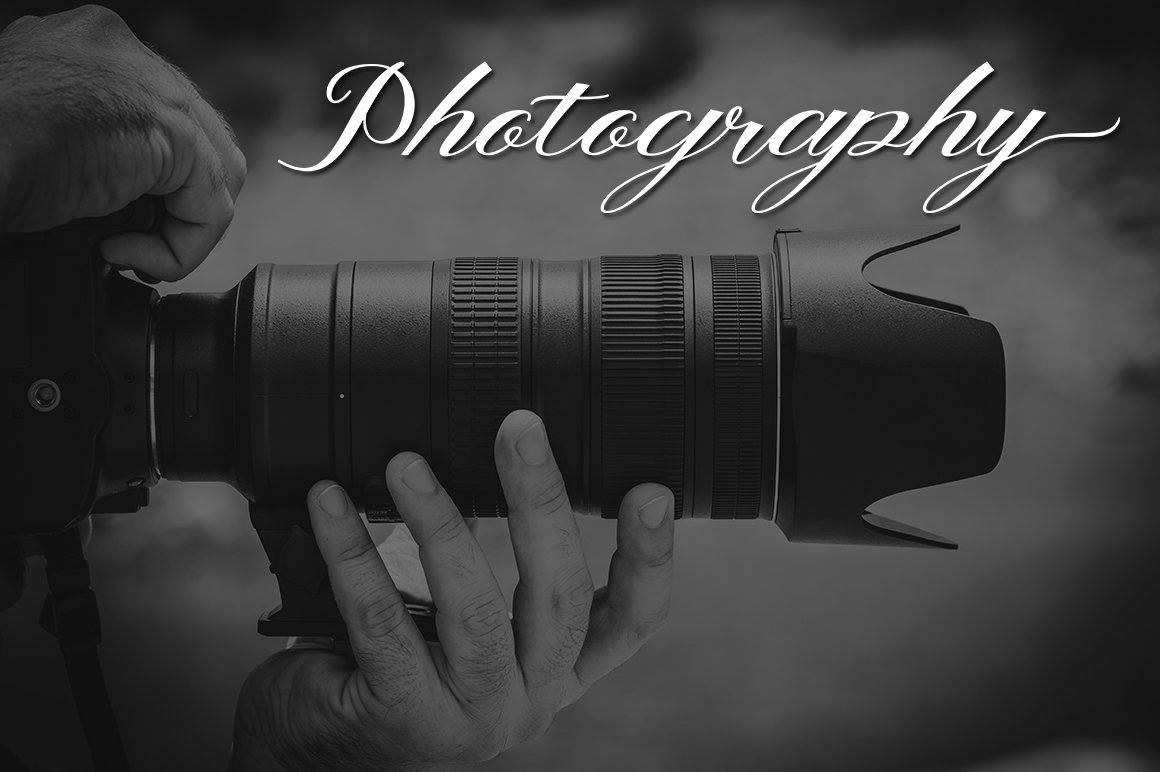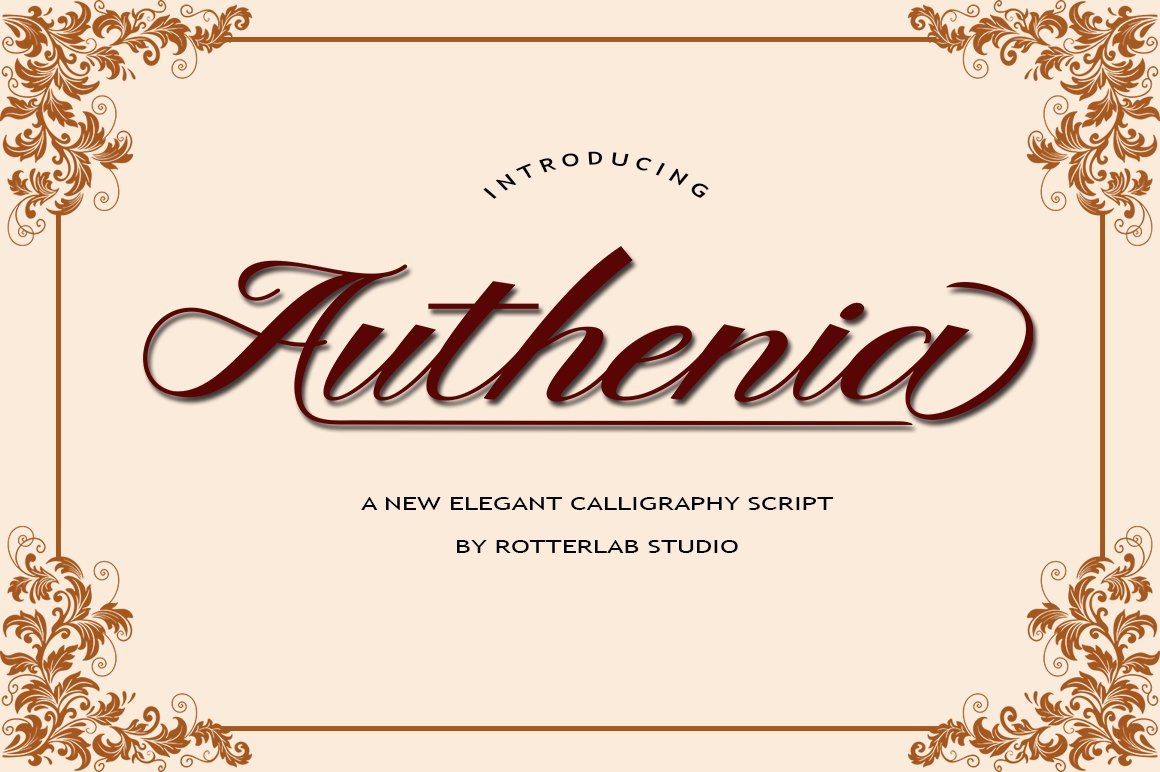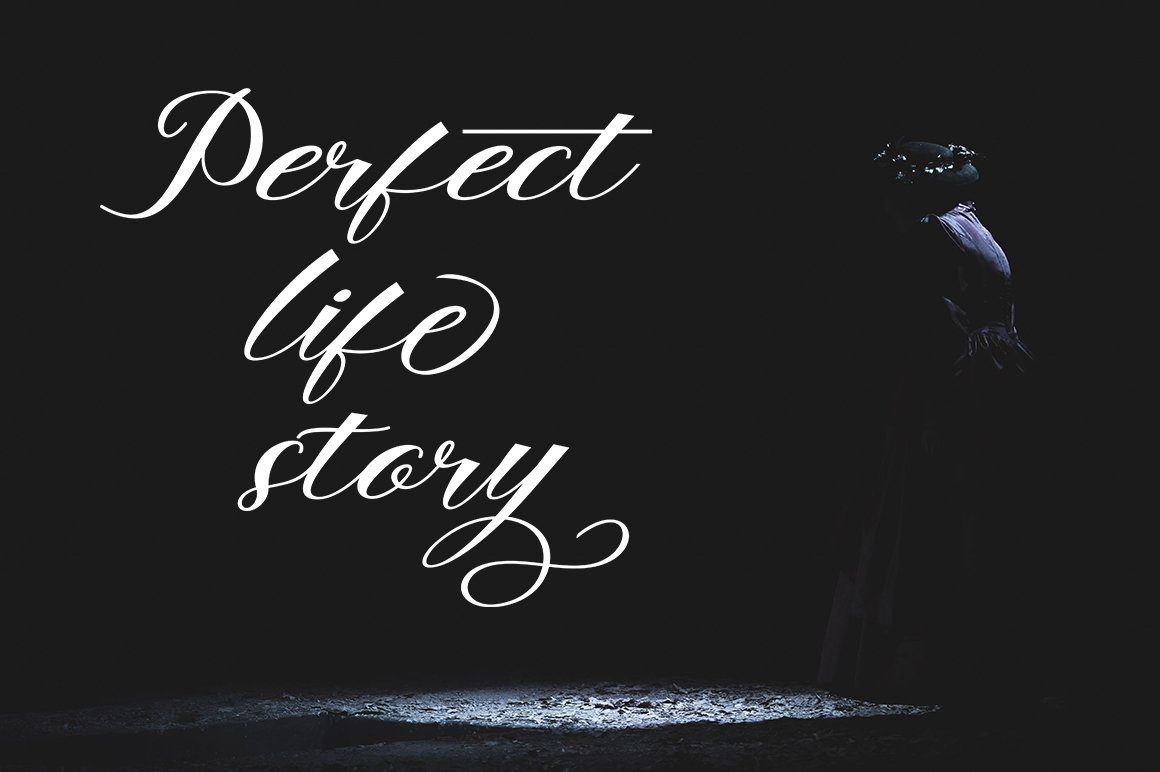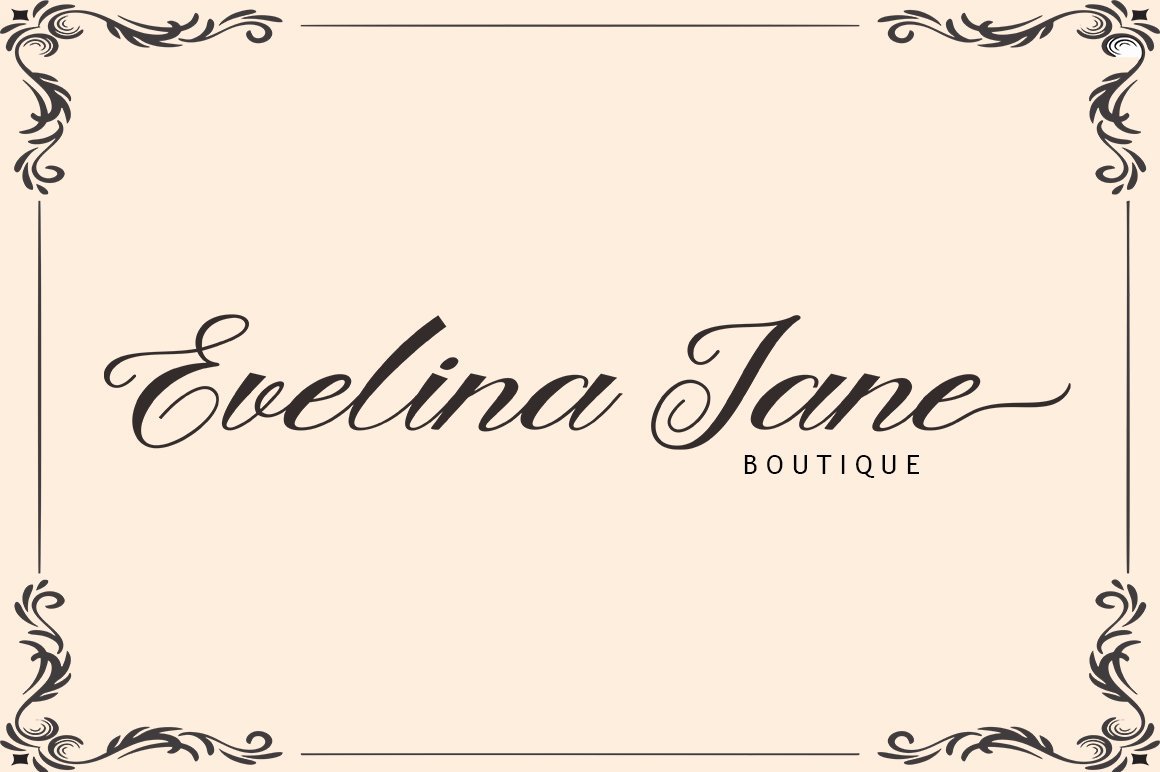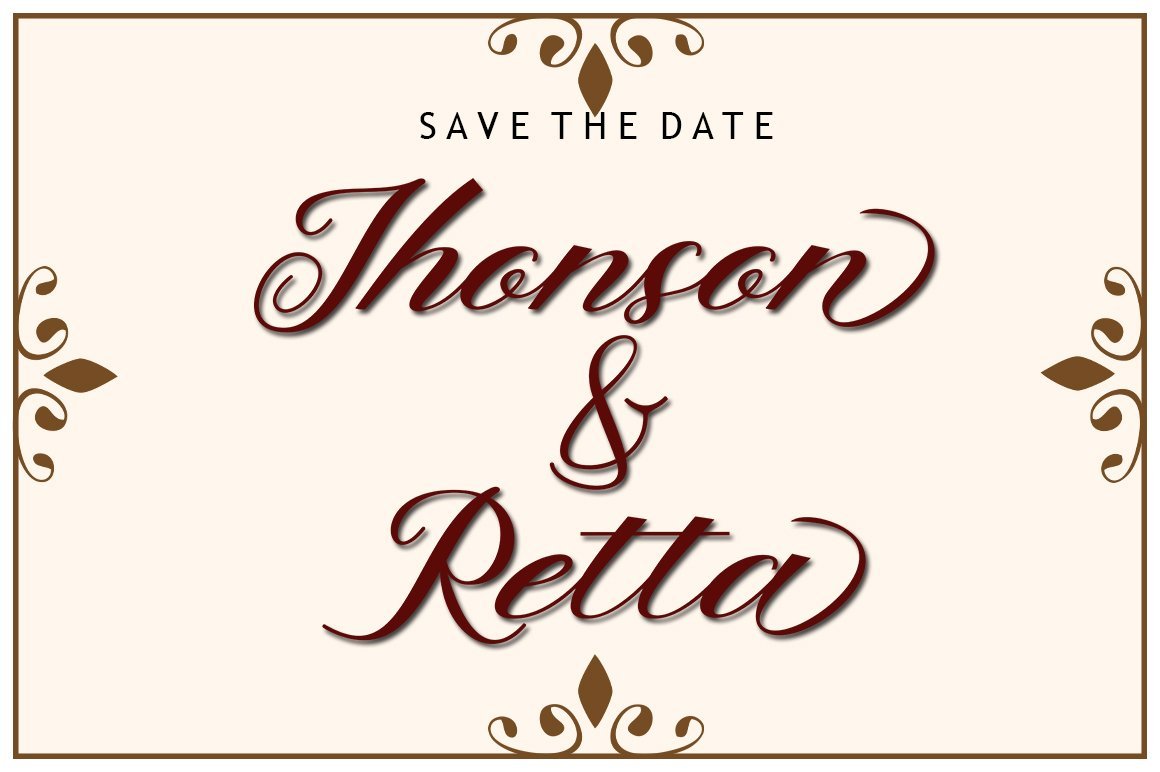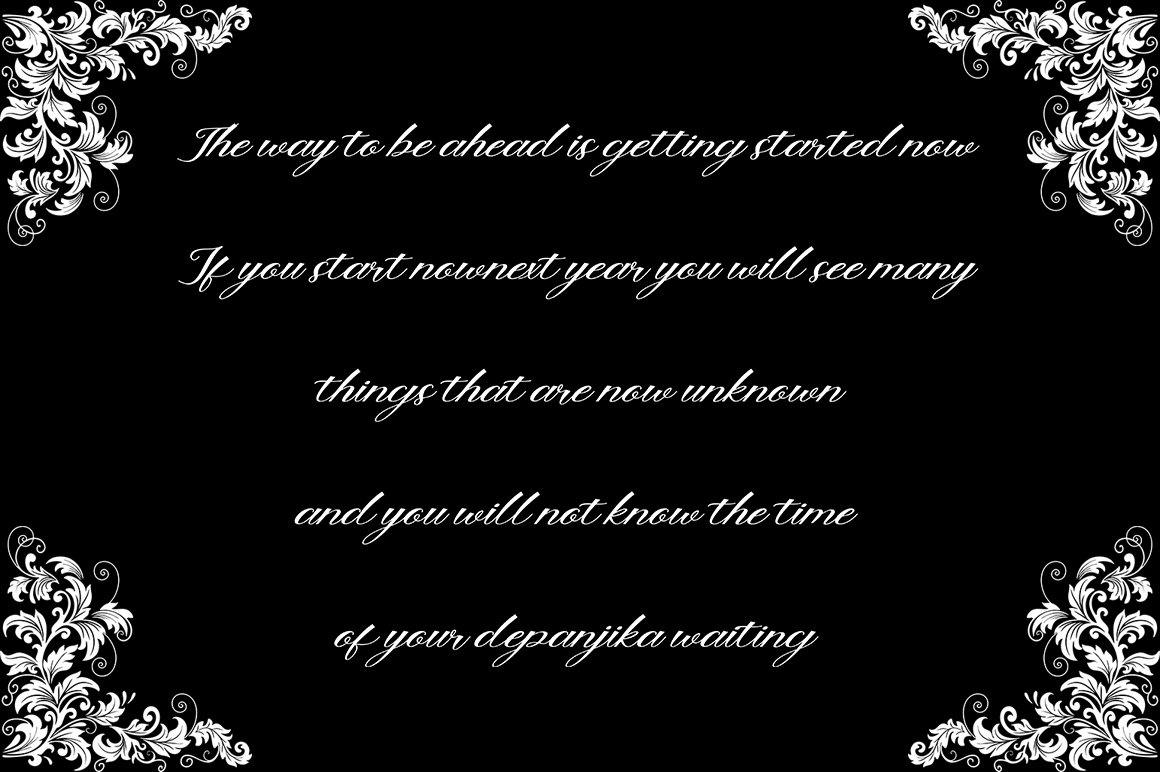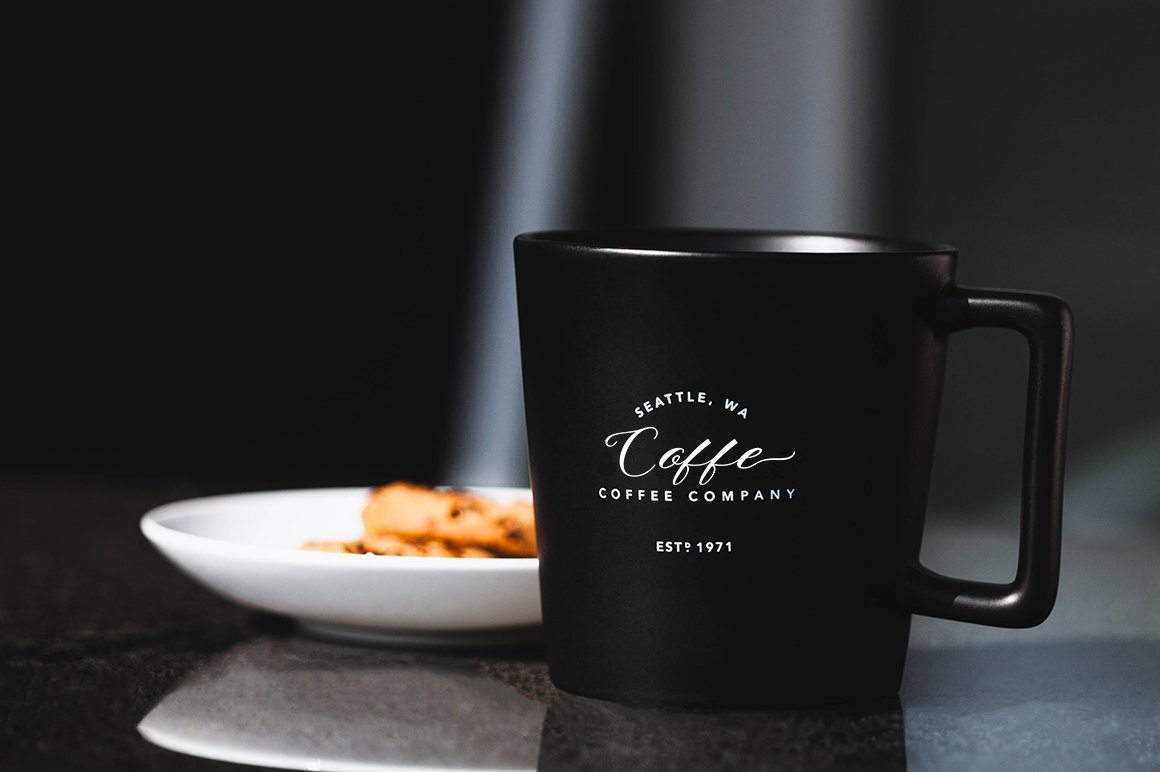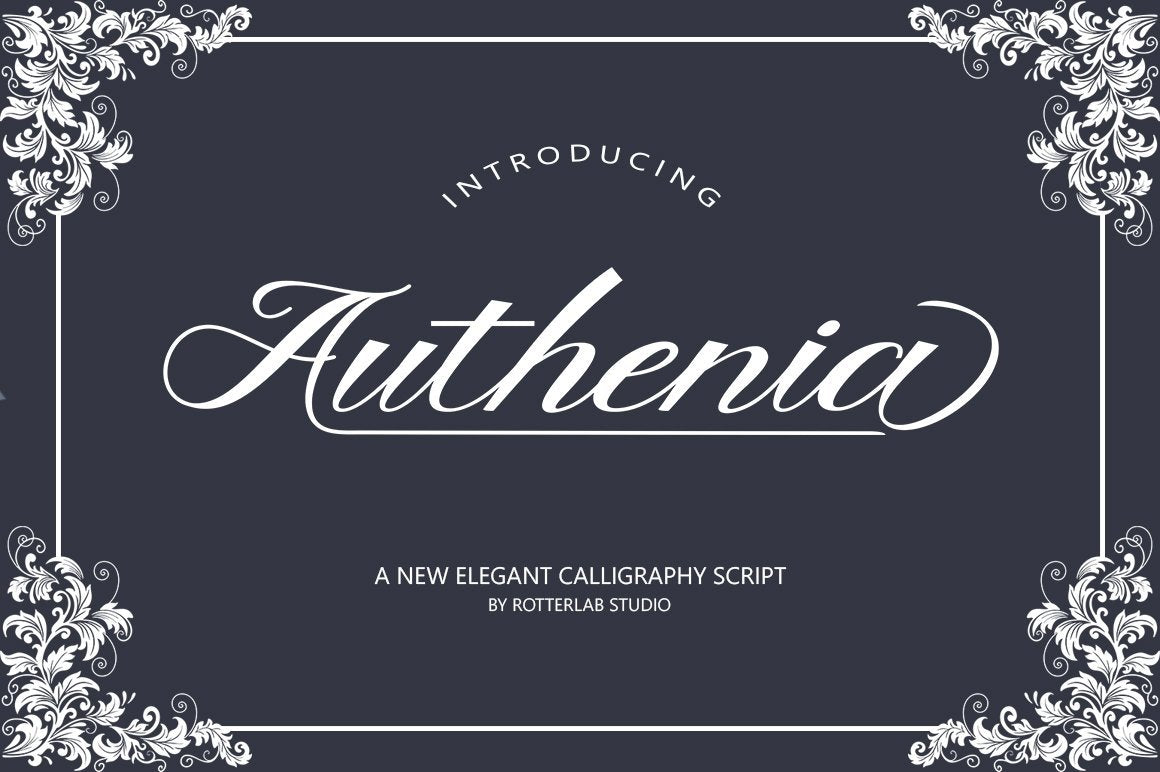
Authenia
About Authenia
Introducing a new quality calligraphy font is Authenia Script. Inspired by a mixture of copper calligraphy with handlettering style. OpenType feature with Stylistic Alternatives, Swash, Ligatures, Stylistic sets. It allows you to mix and match letter pairs to fit your design, and also comes with modern ornaments to make this font look elegant and perfect.  Authenia  is attractive like a smooth, clean, feminine, sensual, glamorous, simple and very easy to read. The classic style is perfect to be applied in various formal forms such as invitations, labels, menus, logos, fashion, make up, stationery, letterpress, romantic novels, books, greeting / wedding cards, packaging, labels, and more. Files included: •  Authenia  ( otf ) •  Authenia  ( ttf ) Authenia  also supports in pragram, Adobe Illustrator, Adobe Photoshop, Adobe InDesign, Corel Draw X version, Microsoft Word, Language Support : Albanian, Basque, Breton, Chamorro, Danish, Dutch, English, Faroese, Finnish, French, Frisian, Galician, German, Icelandic, Italian, Malagasy, Norwegian, Portuguese, Spanish, Swedish. How to access all alternative characters using Adobe Illustrator: • https://www.youtube.com/watch?v=XzwjMkbB-wQ How to use stylistic sets fonts in Microsoft Word 2010 or later versions: • https://www.youtube.com/watch?v=NVJlZQ3EZU0 There are additional ways to access alternates / swashes, using the Character Map (Windows), Nexus Font (Windows) Font Book (Mac) or a software program such as PopChar (for Windows and Mac). How to access all the alternative characters, using the Windows Character Map with Photoshop: • https://www.youtube.com/watch?v=Go9vacoYmBw